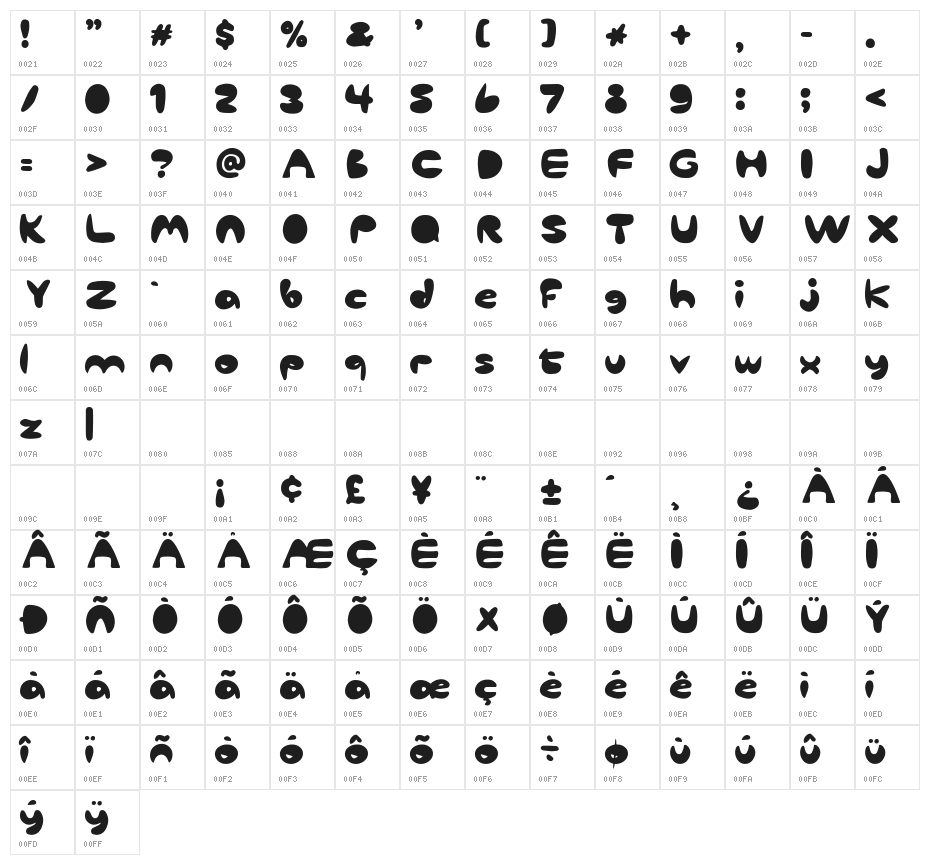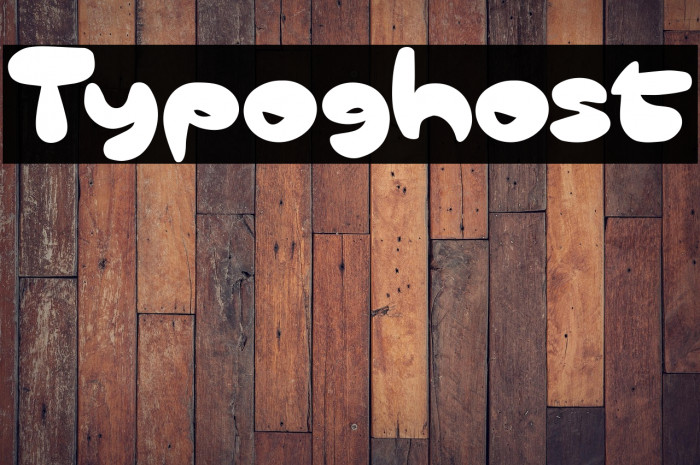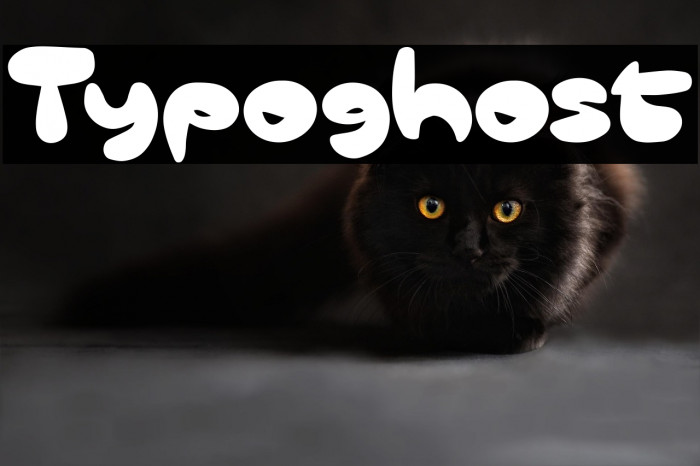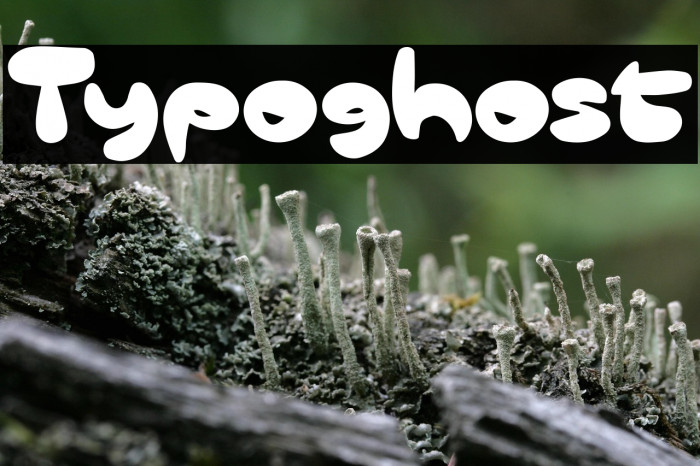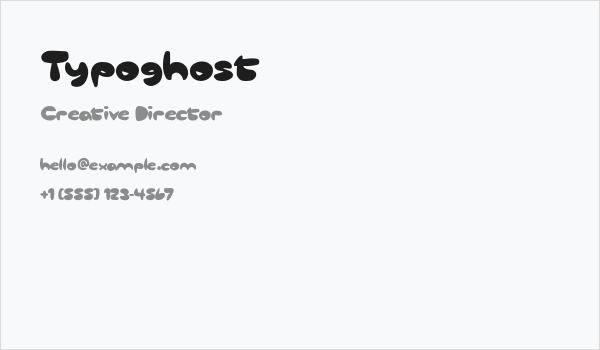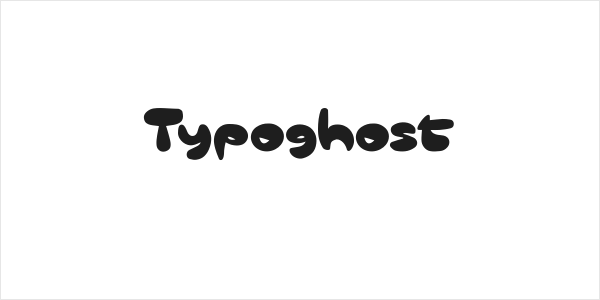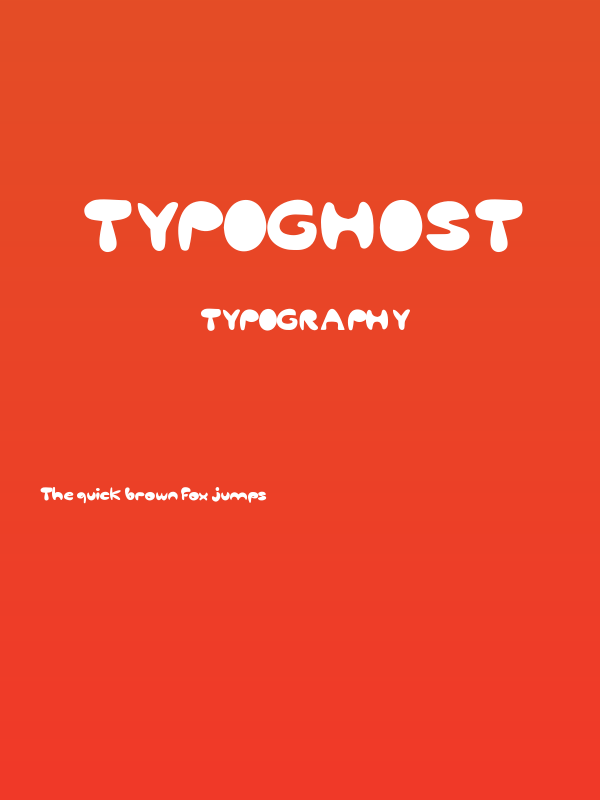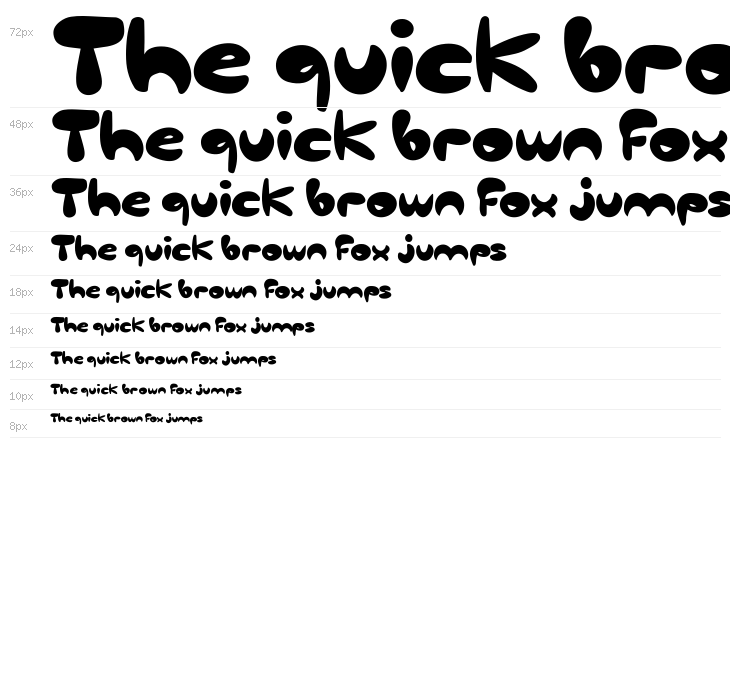
Typoghost Font
Typoghost Description
| Overall Style | Playful, Whimsical, Decorative |
| Use Case | Headlines, Logos, Posters, Children's materials |
| Proposed Projects | Children's books, posters, party invitations, comic titles, playful branding, social media graphics. |